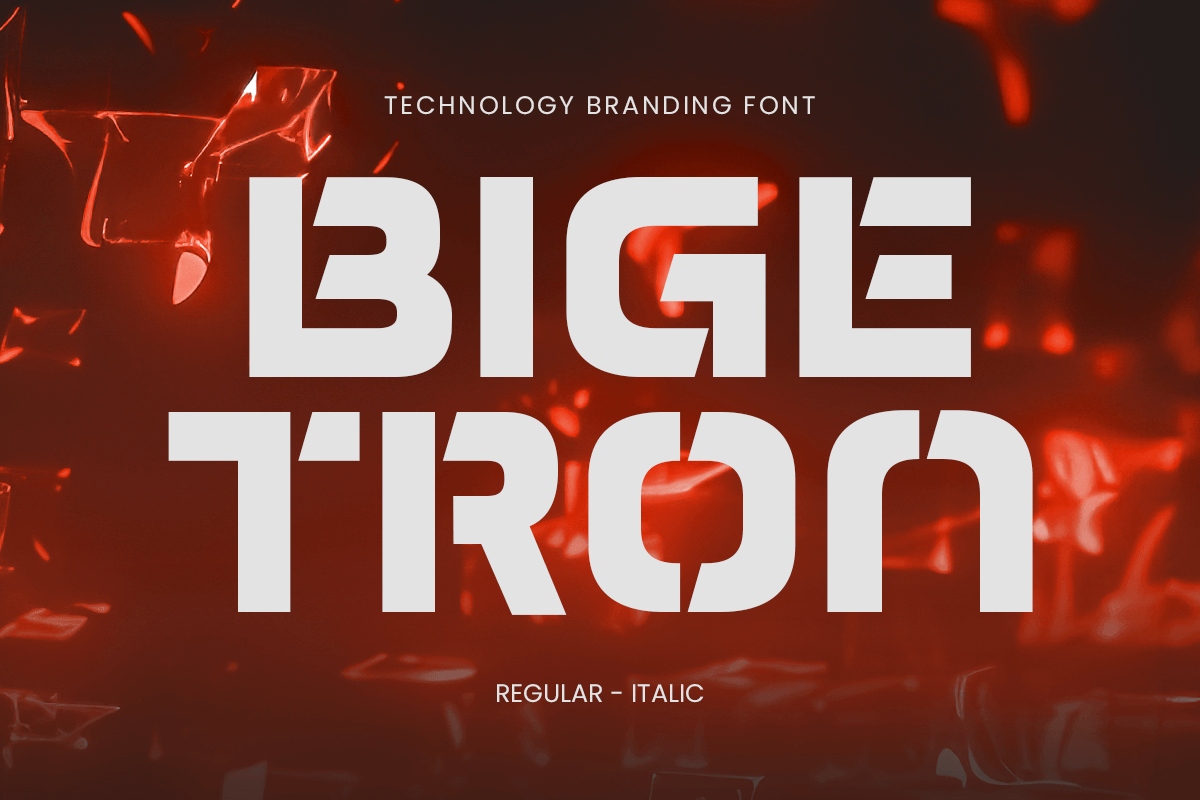
Bigetron
-Technology Branding Font
Bigetron - Technology Branding Font
BIGETRON is a technology branding font crafted to give your tech brand a strong, bold presence. With its modern, sleek lines and geometric precision, BIGETRON is perfect for tech companies, digital platforms, and any brand that wants to convey innovation and professionalism.
This font offers a clean, high-tech design, making it the perfect choice for digital products, logos, tech startups, and online services. Its sharp, modern aesthetic ensures your brand stands out in the crowded tech market while maintaining clarity and impact in both print and digital environments.
BIGETRON – Technology Branding Font Features
• Bold and modern technology-inspired letterforms
• Ideal for tech logos, digital branding, and web design
• Sleek, clean, and professional design
Give your tech brand a powerful identity with BIGETRON – the ultimate font for modern technology branding. 🚀💻